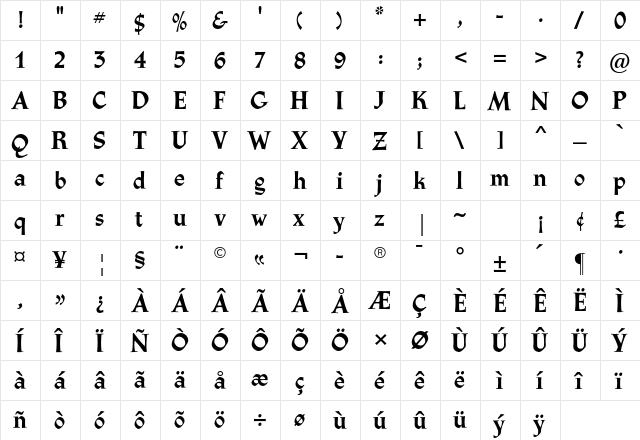
Athenaeum Std Bold Font Preview
Athenaeum Std Bold
Design Context for Athenaeum Std Typeface
Athenaeum Std takes a measured approach to typography — its balanced proportions and neutral character make it a reliable workhorse for both digital and print work. Its bold stroke weight gives it real presence on the page.